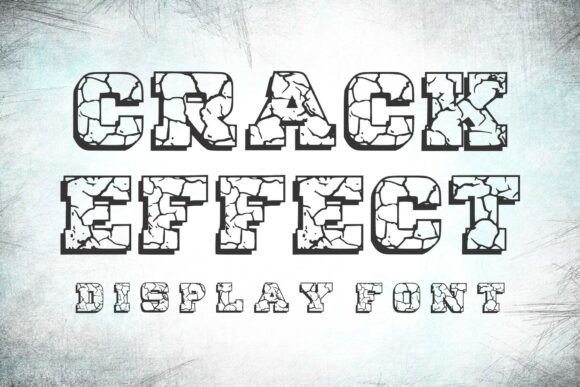
Introduction to Crack Effect Font
Unleash a raw, distressed power in your designs with the Crack Effect font.
The Crack Effect font delivers an unmistakable aesthetic of breakage and intensity, perfect for grabbing attention in high-impact projects This rugged, bold typeface features thick, blocky letterforms that are filled with an intricate, shattered texture, simulating the appearance of cracked earth, broken stone, or shattered glass.
Key Features of Crack Effect Font